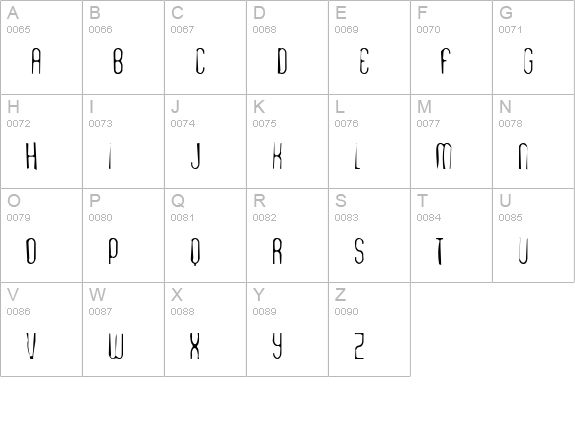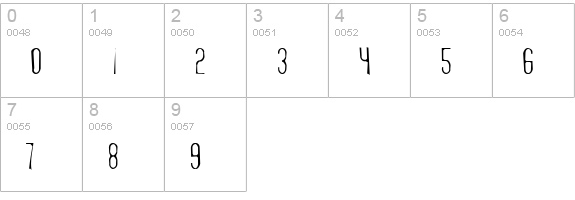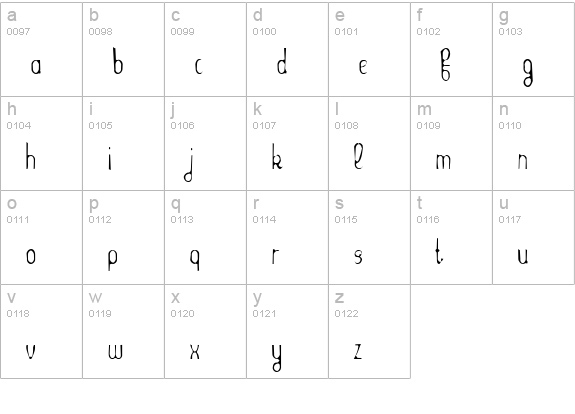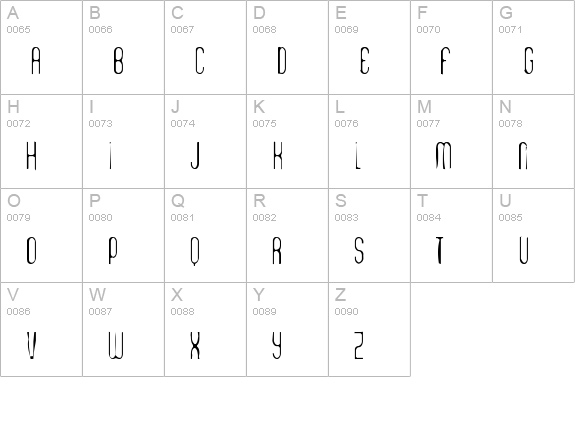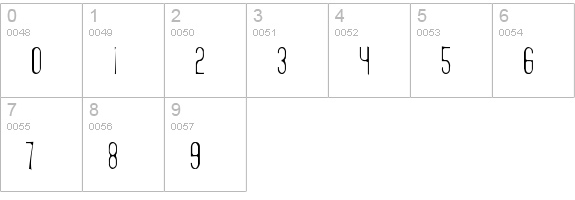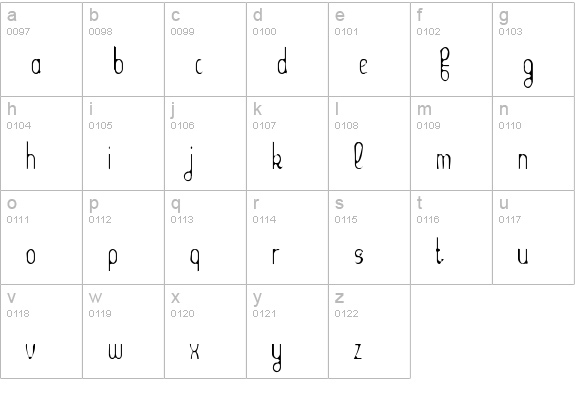
Kleptocracy Gaunt Font Details
Kleptocracy Gaunt font captures the essence of elegance and sophistication with its sleek and stylish design. Featuring sharp edges and a modern aesthetic, this font is perfect for adding a touch of class to any project. Whether you're designing a logo, creating posters, or crafting invitations, Kleptocracy Gaunt will elevate your work to the next level. Best of all, Kleptocracy Gaunt is freely available to download at FontsMarket.com. This means you can easily access this stunning font without any cost, making it a valuable addition to your font collection. With its versatility and timeless appeal, Kleptocracy Gaunt is sure to become a favorite among designers and creatives looking to make a statement. Elevate your designs with Kleptocracy Gaunt font today!